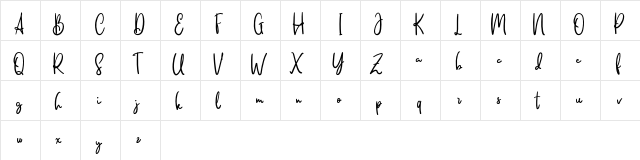
Saillendya FREE Regular Font Preview
Saillendya FREE Regular
Saillendya FREE Regular Font Details
Design Context for Saillendya FREE Typeface
Saillendya FREE is a composed and adaptable typeface that performs quietly and consistently across a wide range of design contexts.